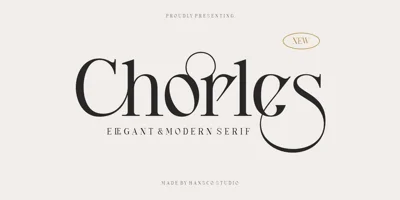
Chorles Elegant Font
Chorles Elegant Font is perfect for luxury fashion magazines, high-end jewelry branding, sophisticated wedding invitations, premium cosmetics packaging, exclusive hotel signage, and upscale interior design portfolios.
Chorles Elegant Font is exciting because it masterfully combines classical refinement with modern sophistication, delivering an exquisite typeface that epitomizes grace, luxury, and timeless elegance in every letter.
The Chorles Elegant Font family includes refined variations: Chorles Elegant Thin, Chorles Elegant Light, Chorles Elegant Regular, Chorles Elegant Bold, and decorative flourishes that enhance the font's aristocratic character.
Discover typographic luxury with Chorles Elegant Font, a supremely refined typeface that brings unparalleled sophistication and classical beauty to your most prestigious design projects. This magnificent font excels in creating memorable identities for luxury cruise lines, exclusive private banking services, haute couture fashion houses, and premium lifestyle brands that cater to the world's most discerning clientele. The meticulously crafted letterforms feature perfectly balanced proportions and delicate details that communicate exclusivity, heritage, and superior quality while maintaining flawless legibility across all luxury applications. Perfect for champagne labels, diamond boutique materials, five-star resort branding, and diplomatic correspondence that demands the highest level of visual refinement, this font speaks to audiences who expect nothing less than perfection. Each character flows with understated magnificence, making every word feel like a masterpiece of typographic artistry. Chorles Elegant Font transforms elite communications into extraordinary expressions of taste and sophistication that elevate brand perception to the pinnacle of luxury.